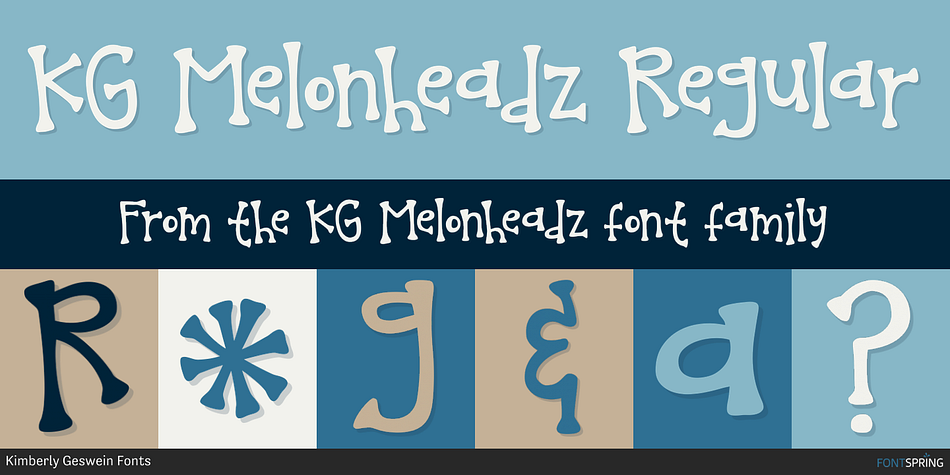
KG Melonheadz Regular
KG Melonheadz is a hand display and kids font published by Kimberly Geswein Fonts.
This font was created in collaboration with the talented Nikki at Melonheadz Illustrating.